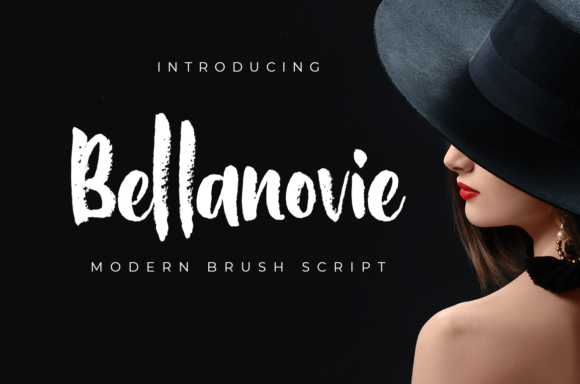
Behold, Bellanovie, a script font that will mesmerize you with its captivating charm. Created by the talented nurfdesigns, Bellanovie is born with a distinct chalk texture, giving it a delightful touch of authentic allure. Its strokes are like a tender caress, flowing across your designs with elegance and poise.
Dive into a world of creative possibilities with Bellanovie. Its versatility knows no bounds, making it perfect for promotional designs, labels, packaging, branding, and logotypes. Unleash your imagination and watch as Bellanovie transforms your designs into captivating masterpieces.
With Bellanovie, you'll discover a wellspring of inspiration. Its hand-crafted characters exude a warmth and personality that will ignite your creativity. Whether you're a seasoned designer or just starting your artistic journey, Bellanovie will guide you towards stunning visual expressions.
Imagine your designs adorned with Bellanovie's enchanting curves and mesmerizing textures. It's the perfect font to elevate your branding efforts, leaving an unforgettable impression on your audience. Its unique style will set your designs apart, making them stand out from the crowd.
Embrace the magic of Bellanovie and let your designs flourish. It's the perfect font to add a touch of sophistication and charm to your creations. Let Bellanovie be your creative companion, guiding you towards artistic greatness.